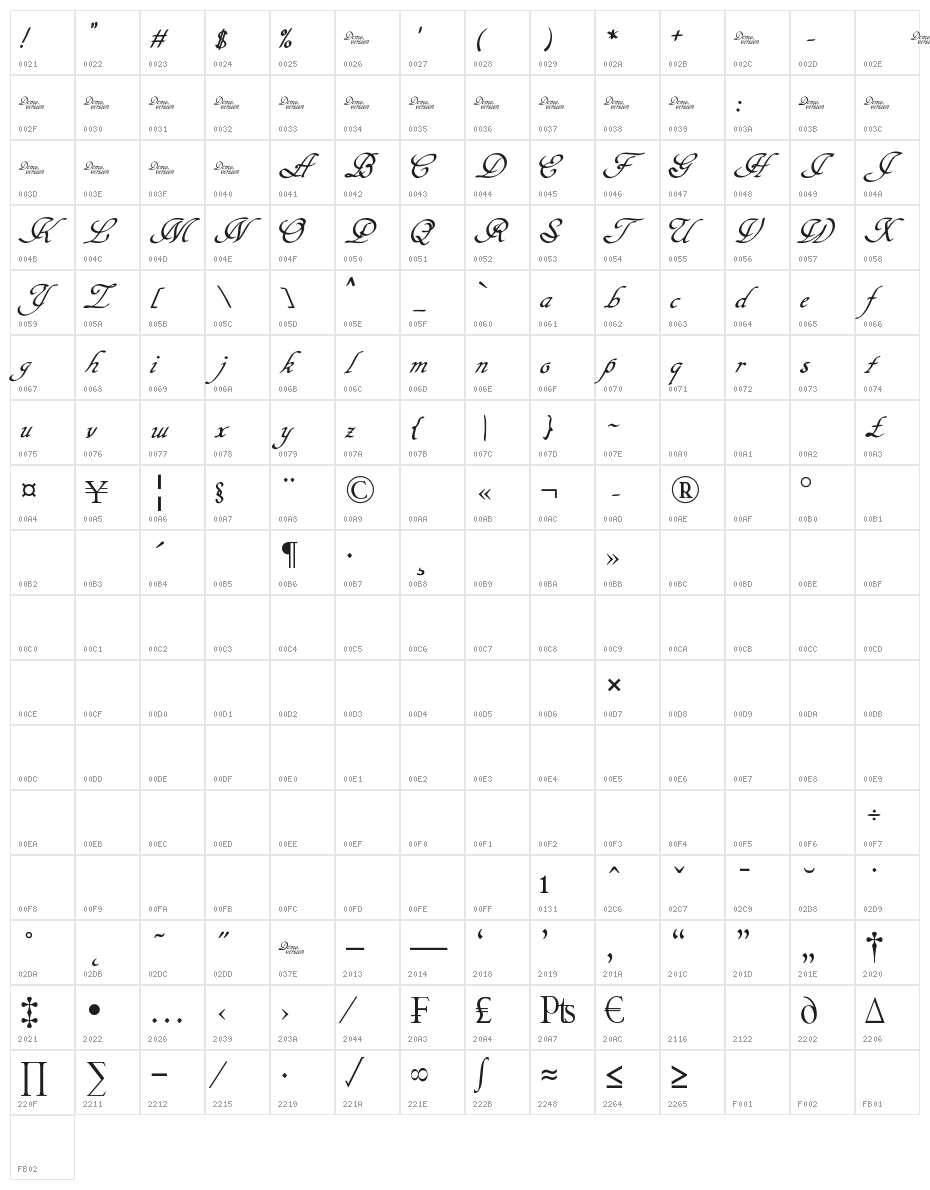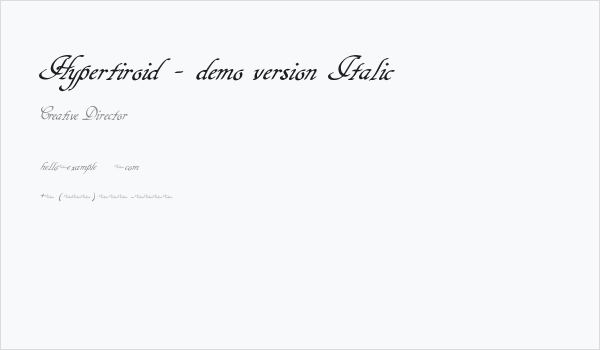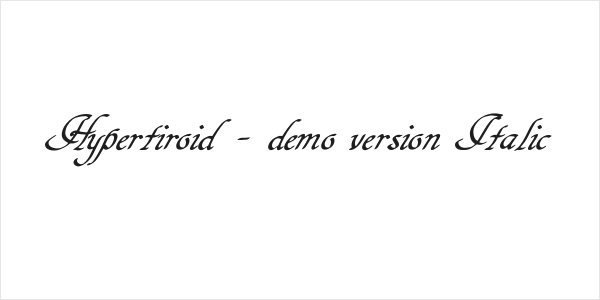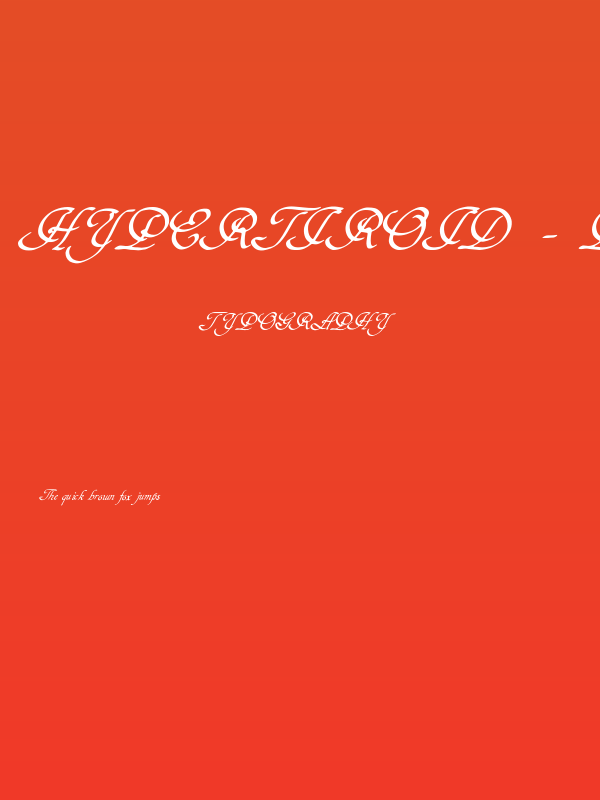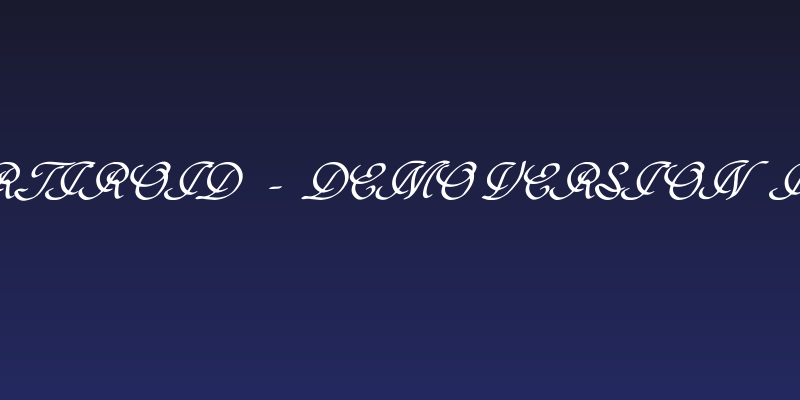
Hypertiroid - demo version Italic Font
Hypertiroid - demo version Italic Description
This font features an elegant and flowing script style, characterized by its cursive, calligraphic appearance. The letters are connected, creating a seamless and sophisticated look. The uppercase letters are ornate, with flourishes that add a touch of grandeur, while the lowercase letters maintain a consistent flow. The font exhibits a high contrast between thick and thin strokes, enhancing its decorative appeal. It is well-suited for formal and elegant designs, offering a sense of refinement and classic beauty. The special characters and numbers are designed to match the overall aesthetic, ensuring consistency throughout.
| Use Case | Logos, Invitations, Decorative headings |
| Proposed Projects | Ideal for wedding invitations, formal event programs, luxury branding, and elegant logo designs. |